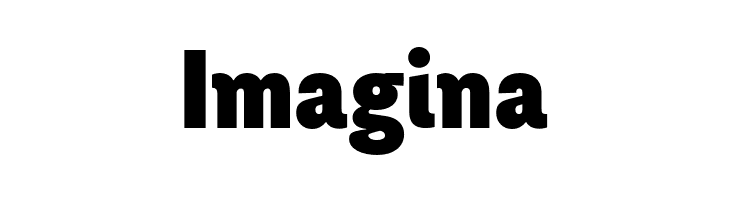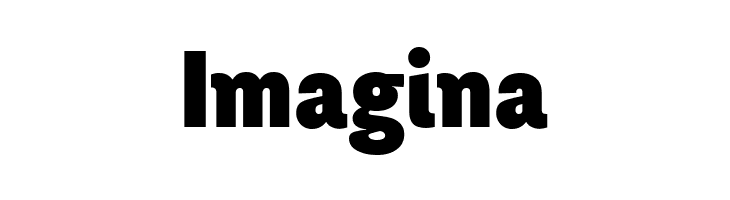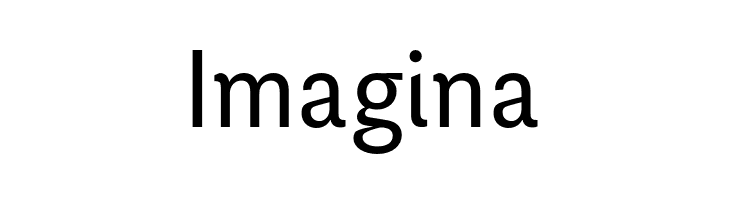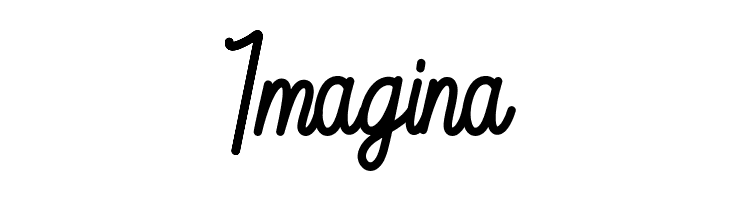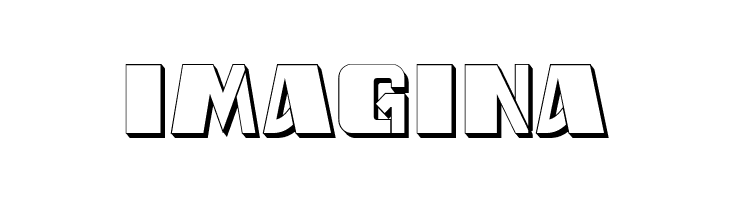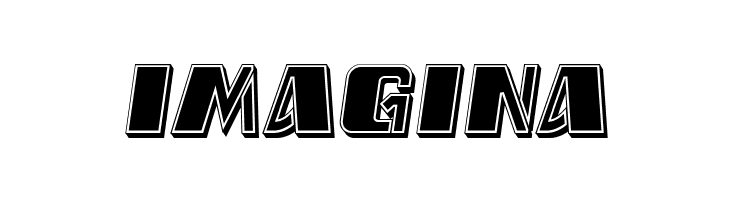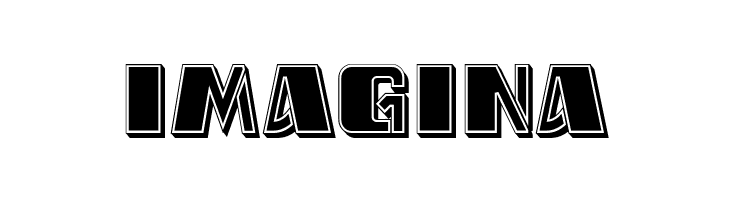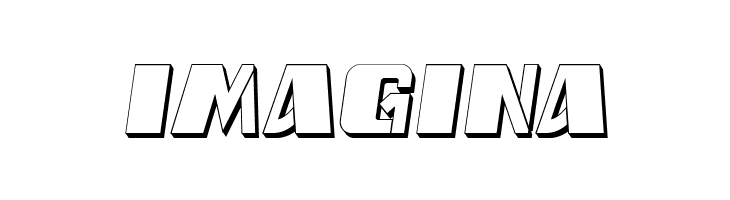
A bold, hand-drawn font with a playful and dynamic style.
A stylish, elegant script font with fluid, cursive strokes and a modern flair.
A playful, hand-drawn font with bold, irregular strokes.
A bold, dynamic script font with flowing, cursive characters.
A bold, cursive font with elegant, interconnected characters and a modern yet classic appeal.
A bold, impactful font with strong strokes and modern appeal.
A clean, modern typeface with geometric structure and uniform stroke widths.
A modern, geometric sans-serif font with a clean and professional look.
A bold, modern font with thick strokes and strong visual impact.
A bold, modern italic font with smooth, slanted letterforms.
A bold, modern sans-serif font with clean lines and balanced spacing.
A bold, modern italic font with dynamic, slanted letterforms.
A bold, modern sans-serif font with geometric shapes and clean lines.
A playful and elegant script font with decorative flourishes and high contrast.
A playful, elegant script font with a handwritten feel and decorative swirls.
A lively, expressive handwritten font with fluid strokes and playful aesthetics.
A bold, outlined font with a modern and geometric style.
A dynamic and elegant cursive script font with flowing letterforms.
A dynamic script font with elegant, flowing lines and cursive letterforms.
A sharp, high-contrast font with elongated serifs and a dramatic, modern style.
A bold, hollow italic font with a modern, geometric style.
A bold, hollow font with a 3D effect and geometric design.
A bold, geometric, italic font with strong outlines and a modern, edgy style.
A bold, geometric font with a three-dimensional effect and modern style.
An artistic, cursive font with a handwritten style.
A bold, expressive handwritten font with a playful and dynamic style.
A bold, modern sans-serif font with clean, geometric lines.
A lively, handwritten font with fluid strokes and playful elegance.
A dynamic, brush-style font with expressive, cursive strokes.
A dynamic and elegant script font with fluid, cursive strokes.
A lively and dynamic script font with fluid, connected letterforms.
A graceful and flowing handwritten script font with elegant curves.